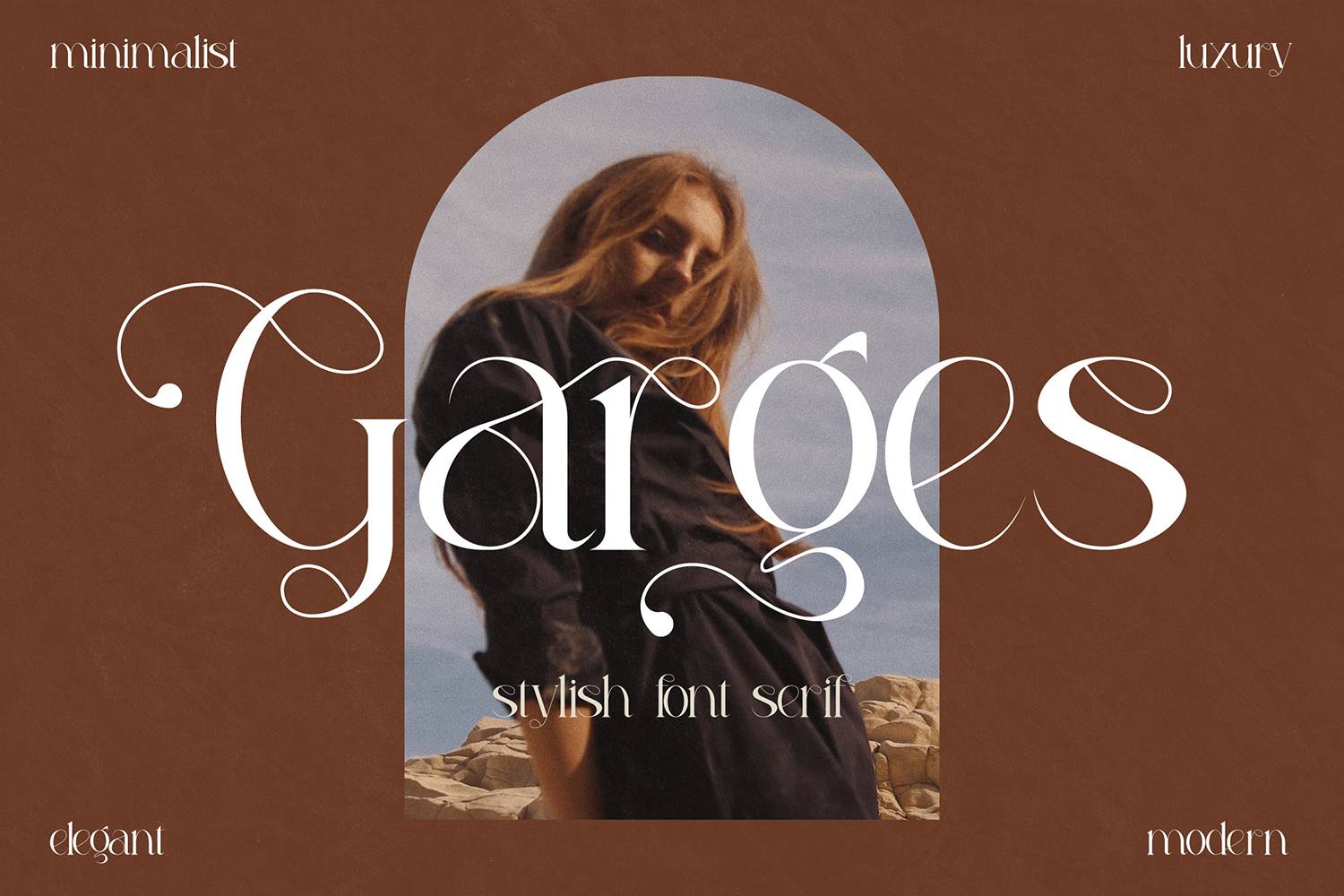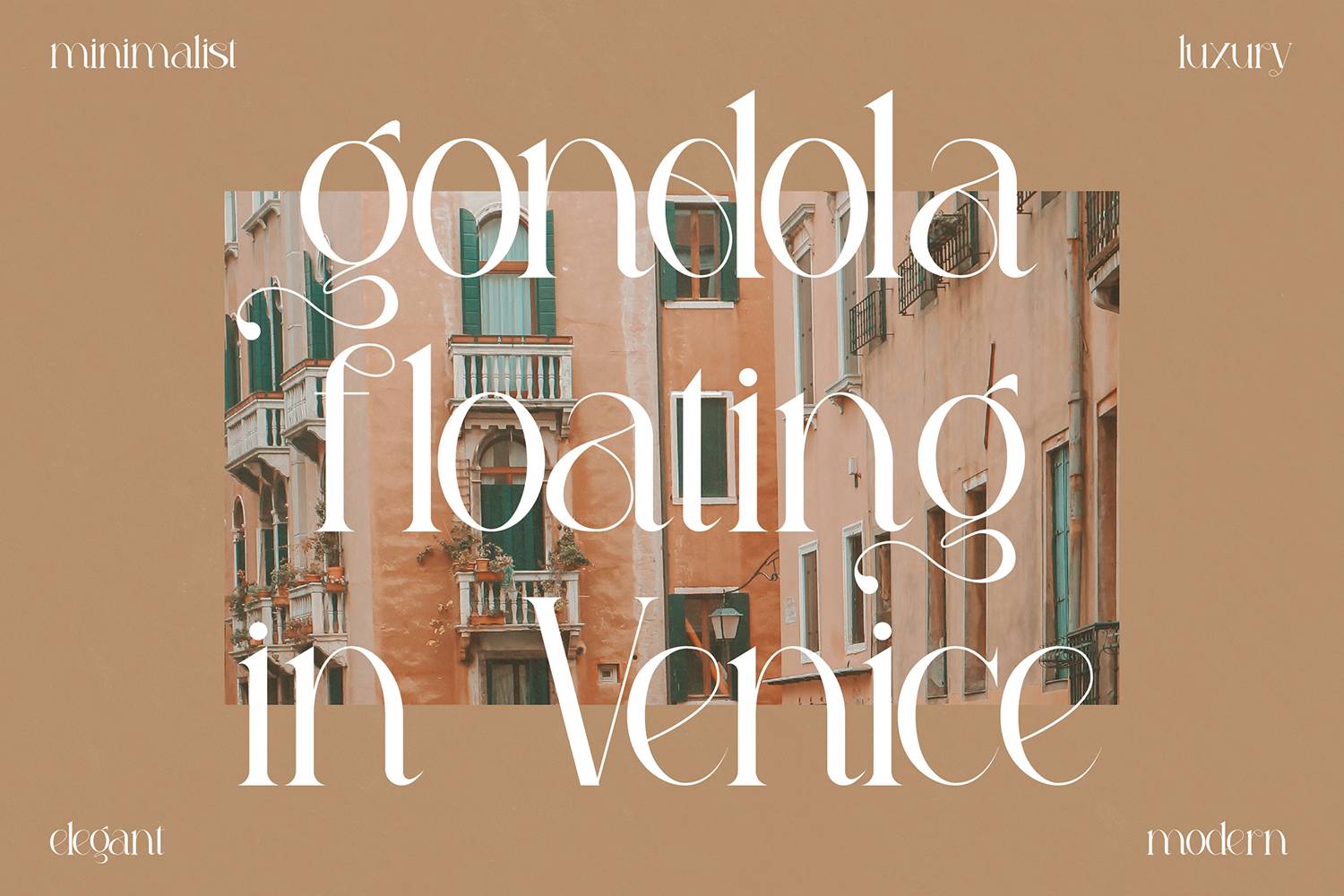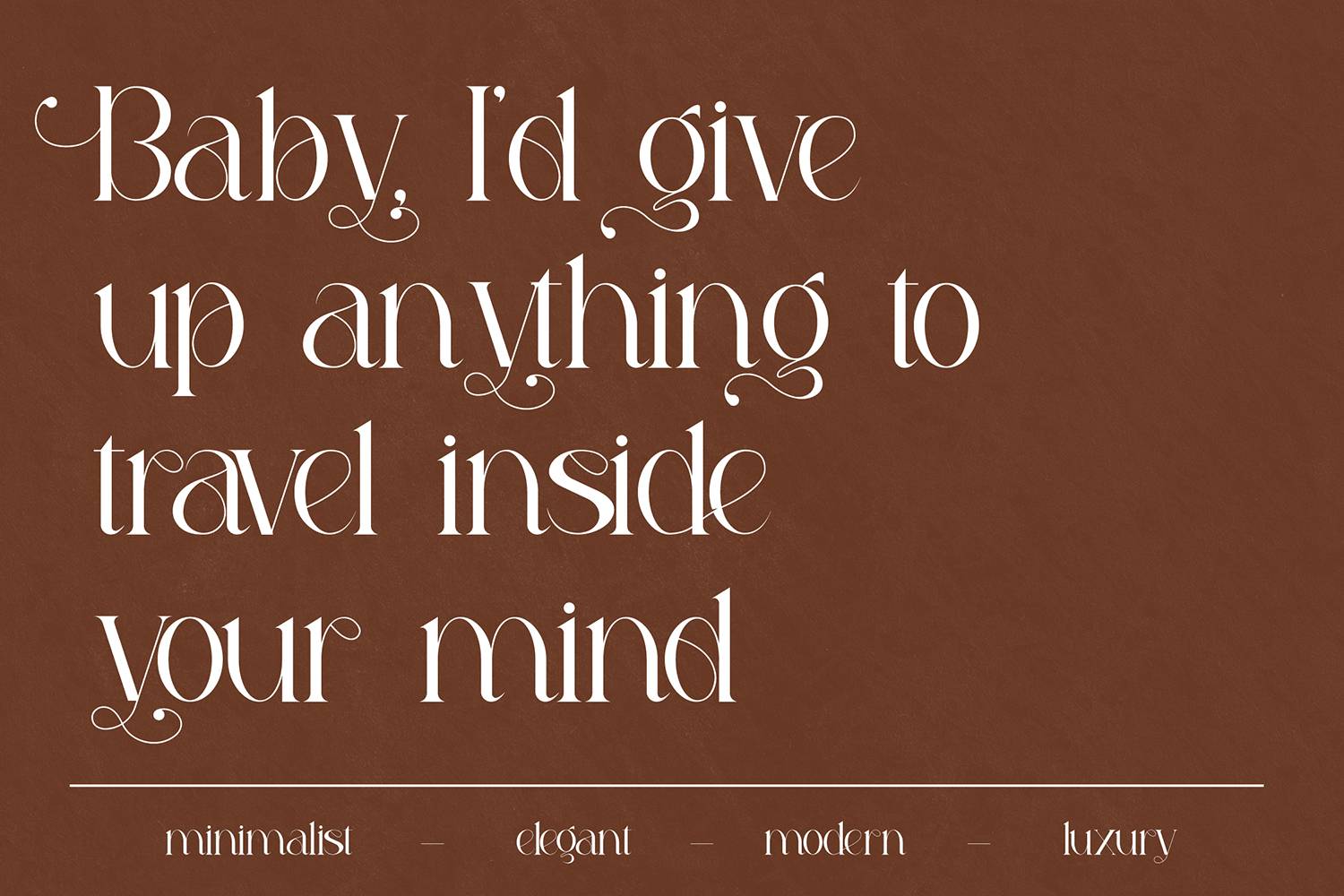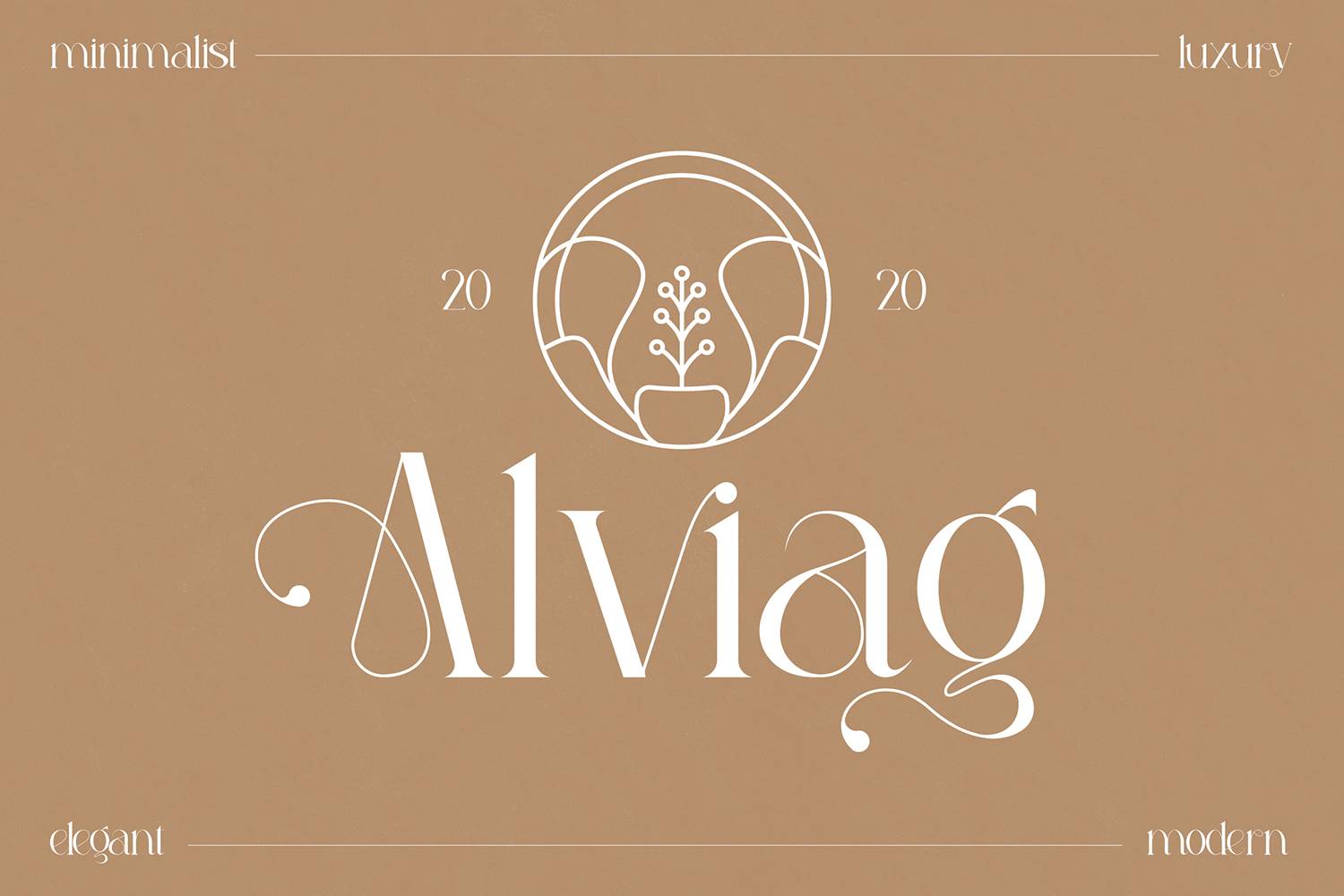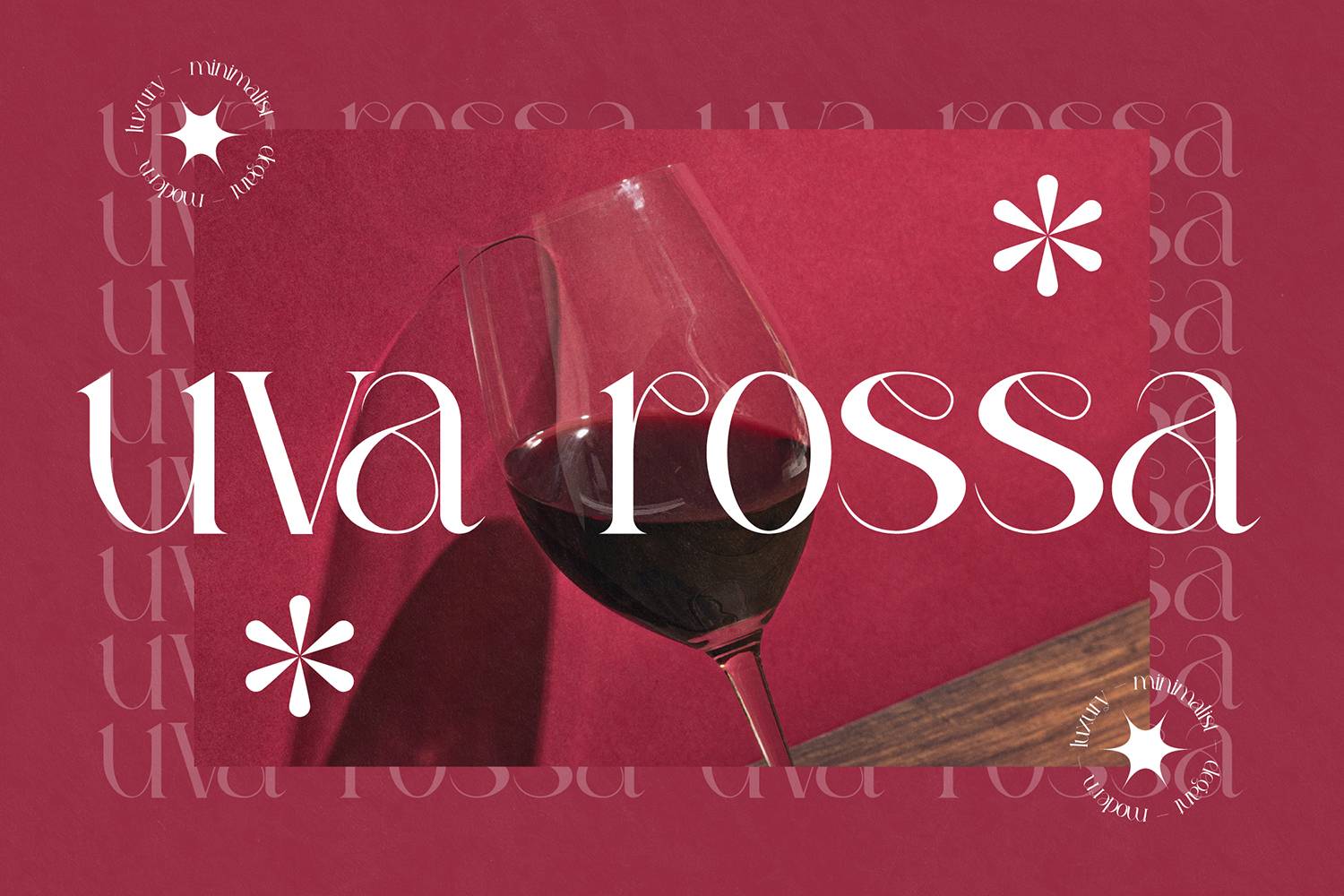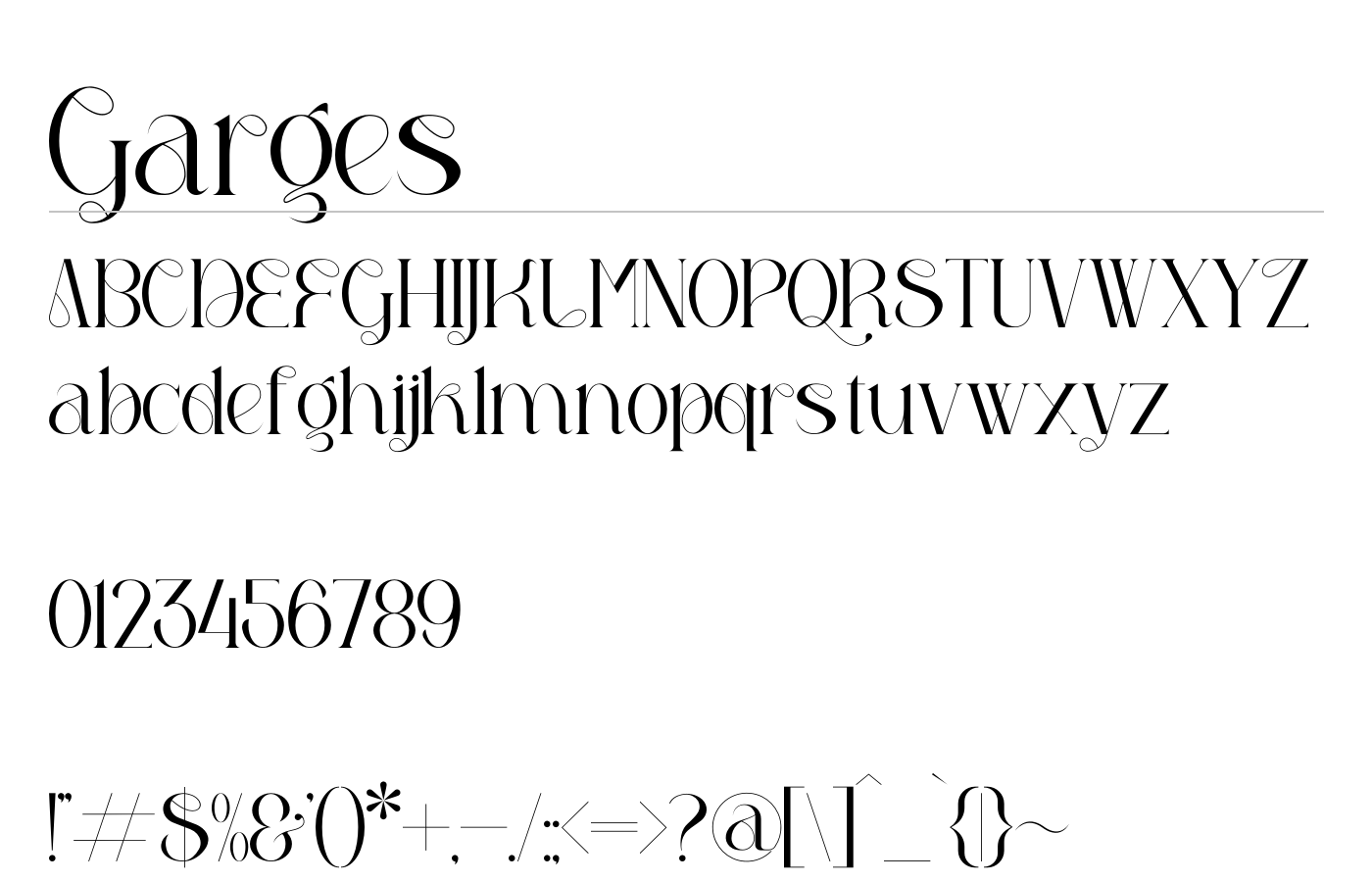
Garges is an elegant serif font with high contrast between thick and thin strokes, featuring graceful, calligraphic swirls and delicate terminals that add a sophisticated, artistic flair. Its narrow width and refined letterforms make it perfect for luxury branding, editorial headlines, and fashion-related design where a stylish, modern look with a touch of vintage charm is desired. This font stands out with its unique ornamental details, making it ideal for creating memorable logos and eye-catching packaging.
Garges Font
About Garges Font